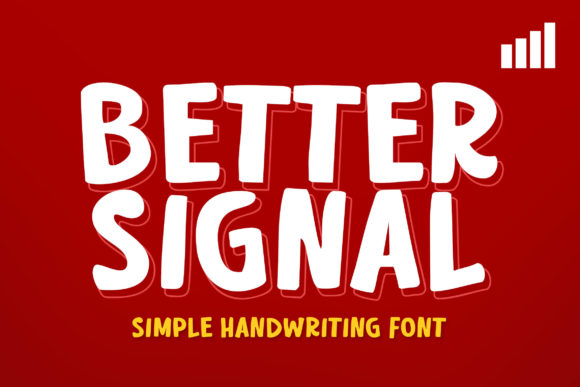
I still remember the frustration of working on a project, hours pouring into the design, and then getting stuck on one thing: the font. My client wanted something bold, eye-catching, and unique, but I just couldn’t seem to find the right fit. That’s when I stumbled upon **Better Signal**, a cool, rough styled, and bold display font that changed the game. In this article, I’ll share my experience with Better Signal, its features, and how to make the most of it in your designs.
An Honest Review of Better Signal
- ✨ **Unique Style**: Better Signal’s rough, bold aesthetic adds a touch of ruggedness to any design, making it perfect for posters, flyers, and prints.
- ✅ **High Versatility**: This font can be used for a wide range of projects, from bold headlines to eye-catching titles.
- 💥 **Attention-Grabbing**: Better Signal is designed to grab attention, making it ideal for designs that need to stand out.
While Better Signal is an excellent font, there are a few things to keep in mind:
- 🤔 **Limited Legibility**: Due to its bold and rough style, Better Signal may not be the best choice for body text or small font sizes.
- ⚠️ **Glyph Limitations**: Some users may find the glyph selection limited, but this can be overcome by exploring OpenType features.
The Story Behind Better Signal
Better Signal was designed with the goal of creating a bold, eye-catching font that would add a touch of ruggedness to any design. Inspired by the world of music and art, the designer aimed to create a font that would stand out in a crowded design landscape. With its unique style and attention-grabbing aesthetic, Better Signal has become a go-to font for designers looking to make a statement.
| Font Name | Better Signal Font |
| Author | fontherapy |
Q: What is the best use for Better Signal?
A: Better Signal is ideal for bold headlines, posters, flyers, and prints where you want to grab attention.
Q: Can I use Better Signal for body text?
A: While Better Signal is not designed for body text, it can be used for short paragraphs or captions where a bold font is desired.
Q: Is Better Signal suitable for digital use?
A: Better Signal is primarily designed for print use, but it can be used for digital projects where a bold, attention-grabbing font is needed.